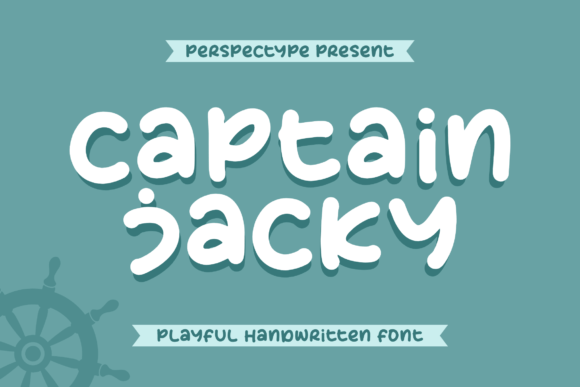
Discover the enchanting world of Captain Jacky Font, a captivating script font family that will elevate your creations with its playful charm.
Indulge in the whimsical strokes of this font, meticulously crafted to bring an air of sophistication and style to your designs. Ideal for packaging, your products will demand attention with its eye-catching presence.
Picture your products wrapped in the embrace of Captain Jacky's script, inviting customers to embark on a journey of imagination. Let your branding soar with its unique and expressive character.
Whether you're designing homeware that tells a story or creating memorable invitations that reflect your personal flair, Captain Jacky Font is the key to unlocking endless possibilities.
This versatile font dances effortlessly across mugs, posters, and t-shirts, adding a touch of handwritten elegance to every masterpiece. Its versatility extends to book covers, name cards, and more, leaving an unforgettable impression on all who behold it.
Embrace the magic of Captain Jacky Font today and watch your designs blossom with creativity and flair. Its enchanting aura will captivate your audience, leaving a lasting impact that resonates with both style and substance.